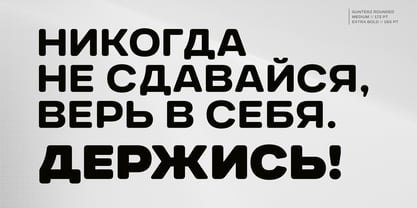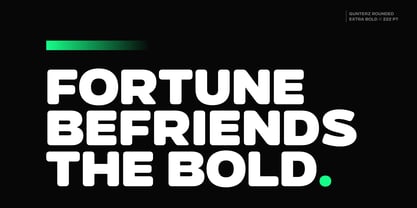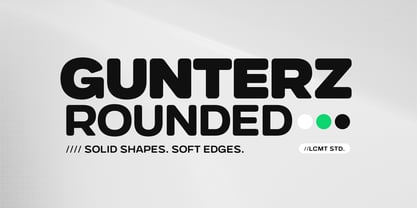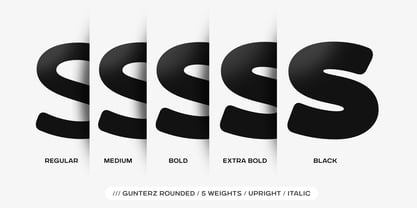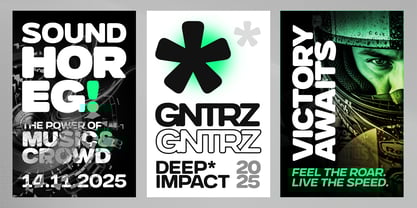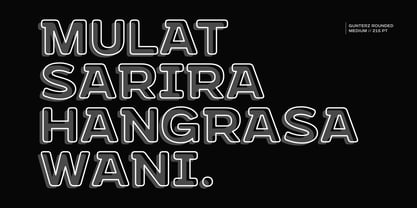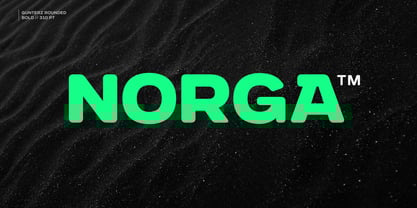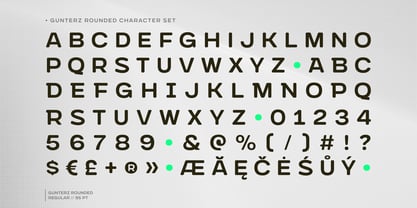
Gunterz Rounded
by Locomotype
The Gunterz Rounded Font Family was designed by Arwan Sutanto and published by Locomotype. Gunterz Rounded contains 10 styles and family package options. More about this family
Gunterz Rounded embodies a friendly and modern evolution of its bold all-caps predecessor, Gunterz.
Retaining the impactful presence of the original, this new style introduces softened corners, creating a more approachable aesthetic. Perfect for projects that require a strong yet charismatic look, it offers the same five weights and matching italics, along with valuable OpenType features.
Ideal for headlines, logos, and packaging, Gunterz Rounded serves as a contemporary twist on a classic font, enhancing visual communications with its versatile design.